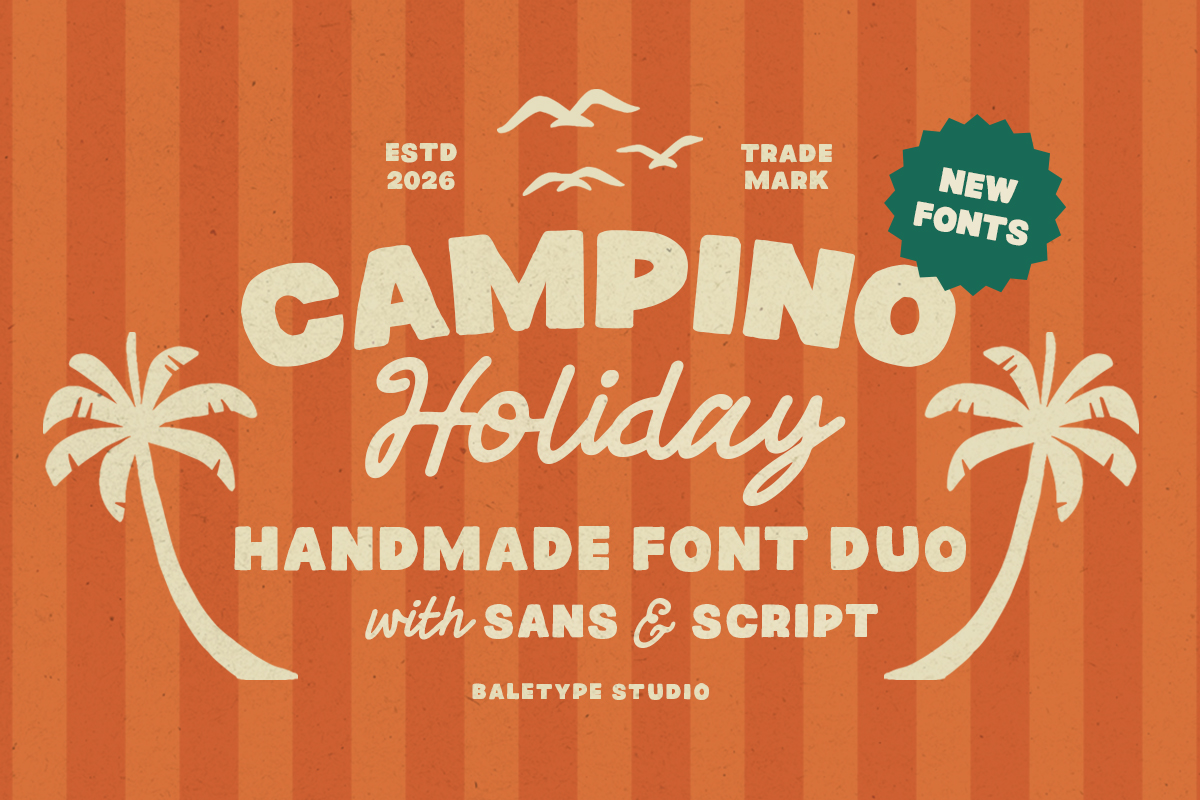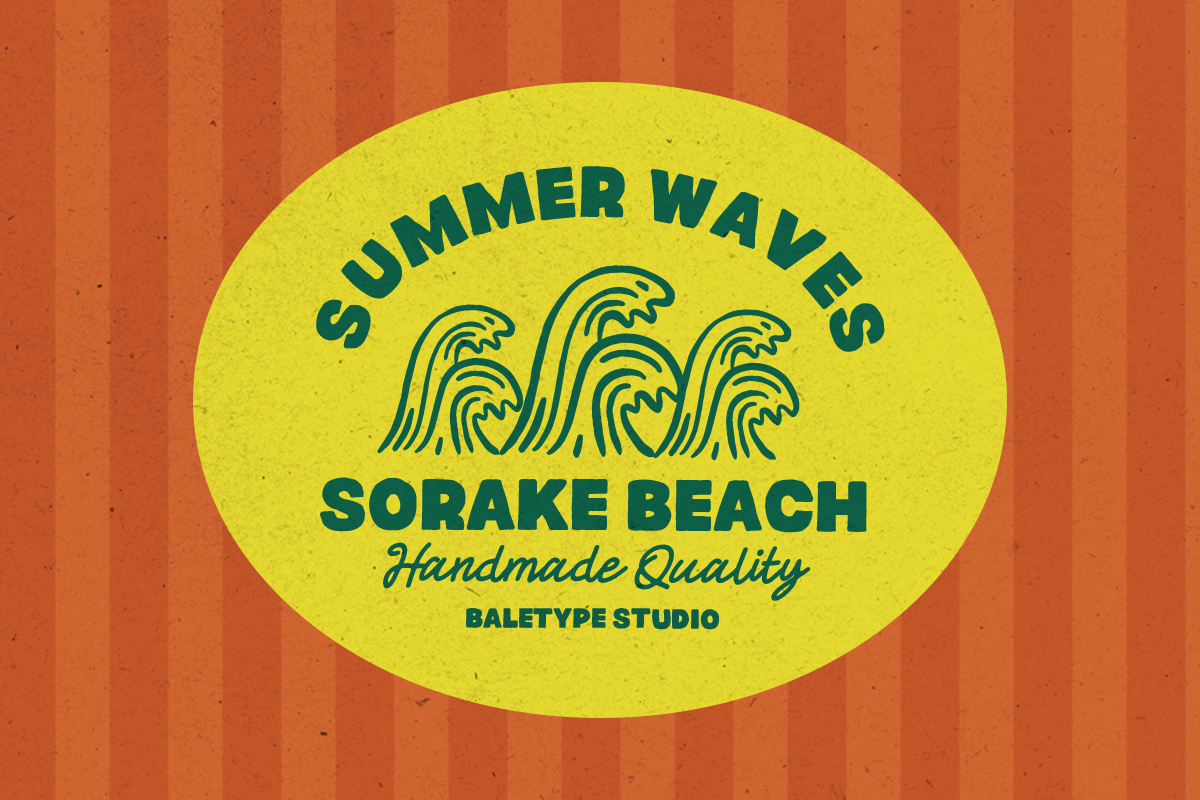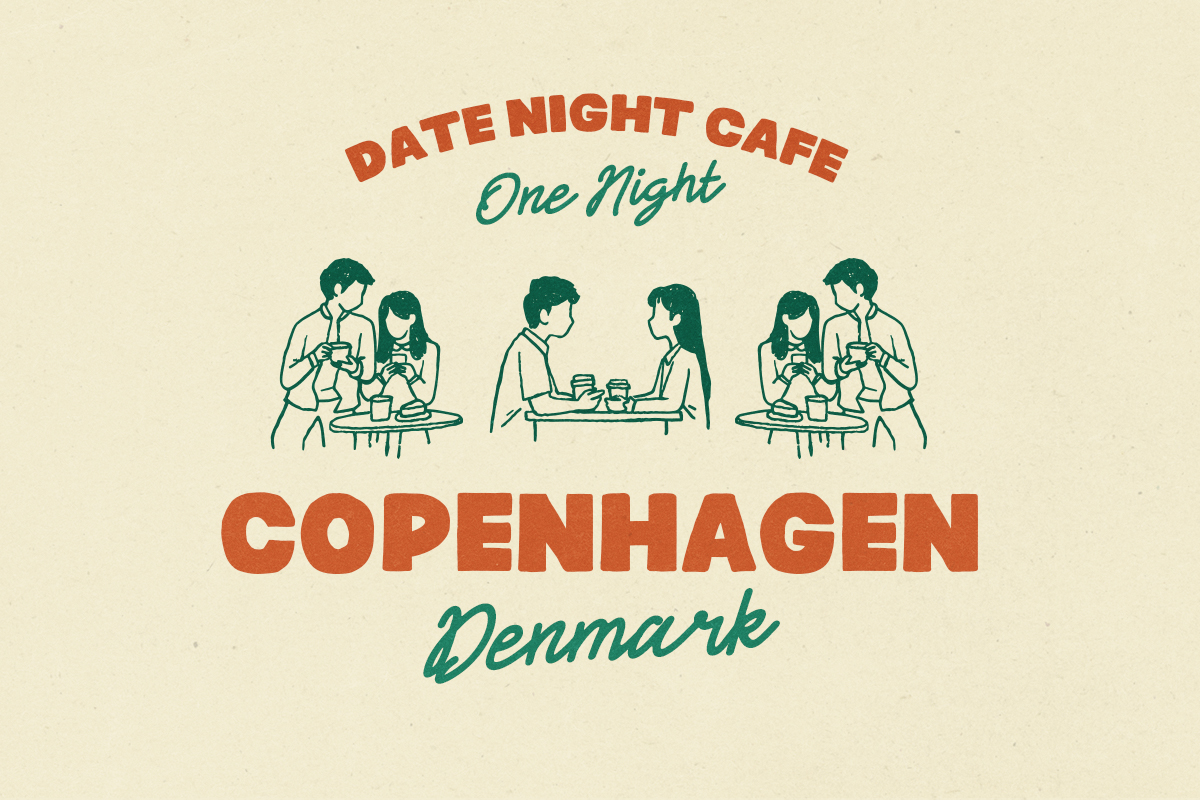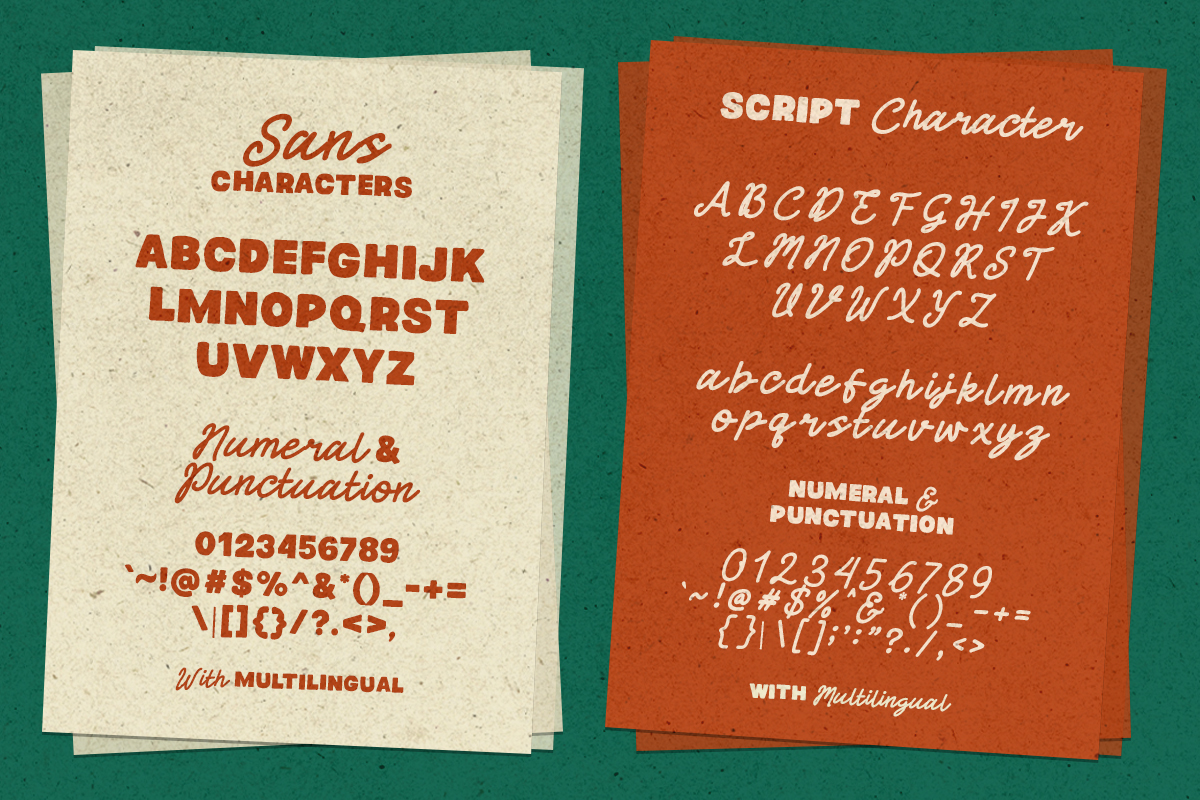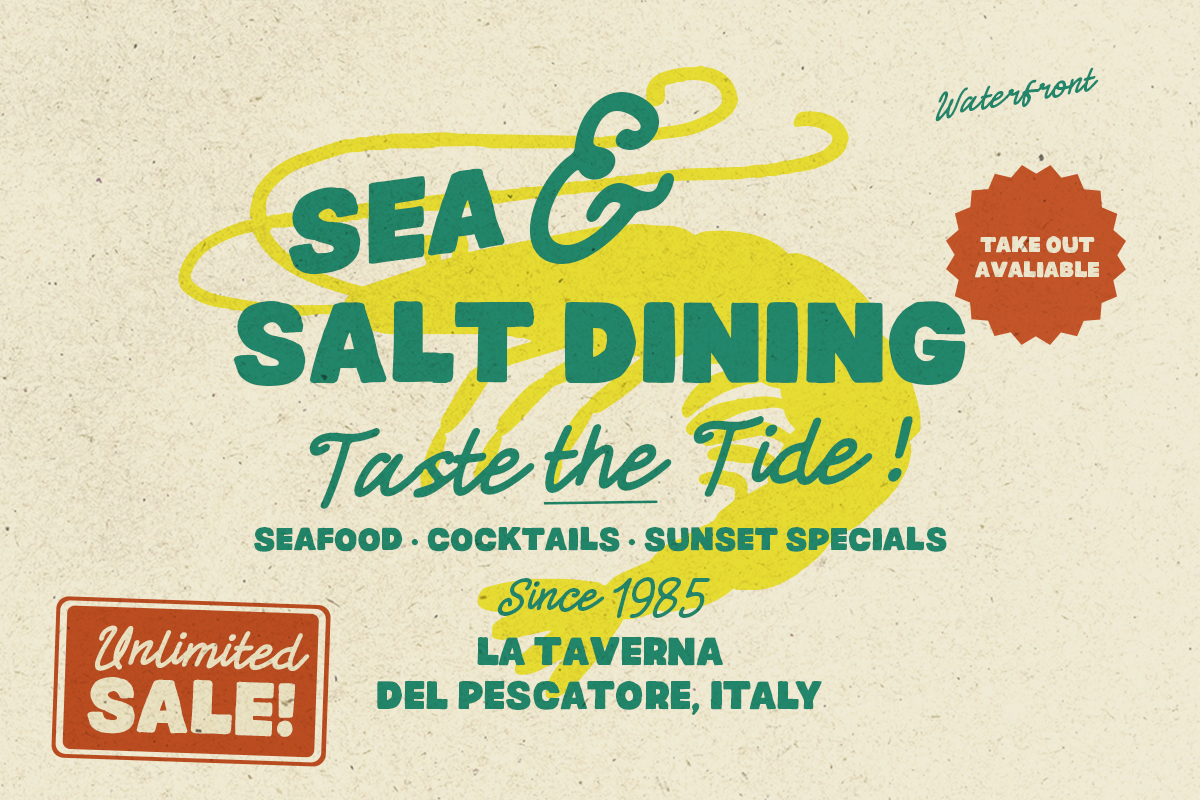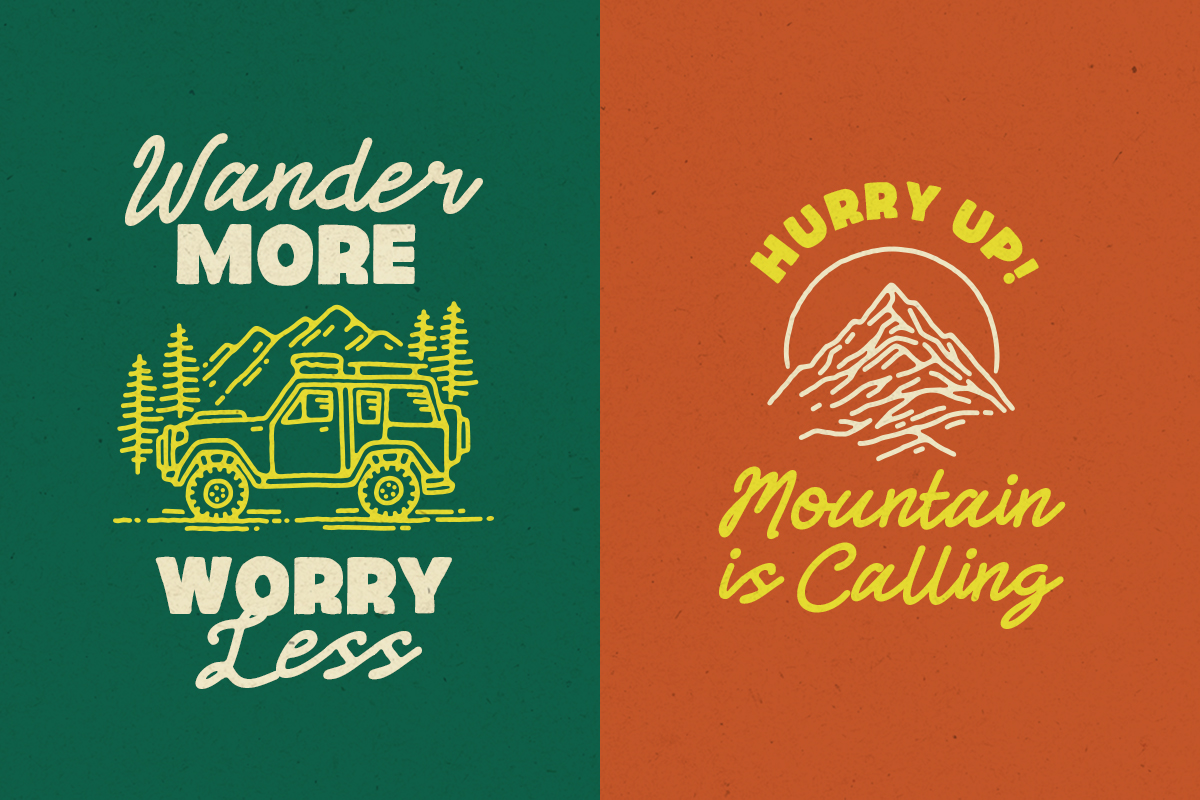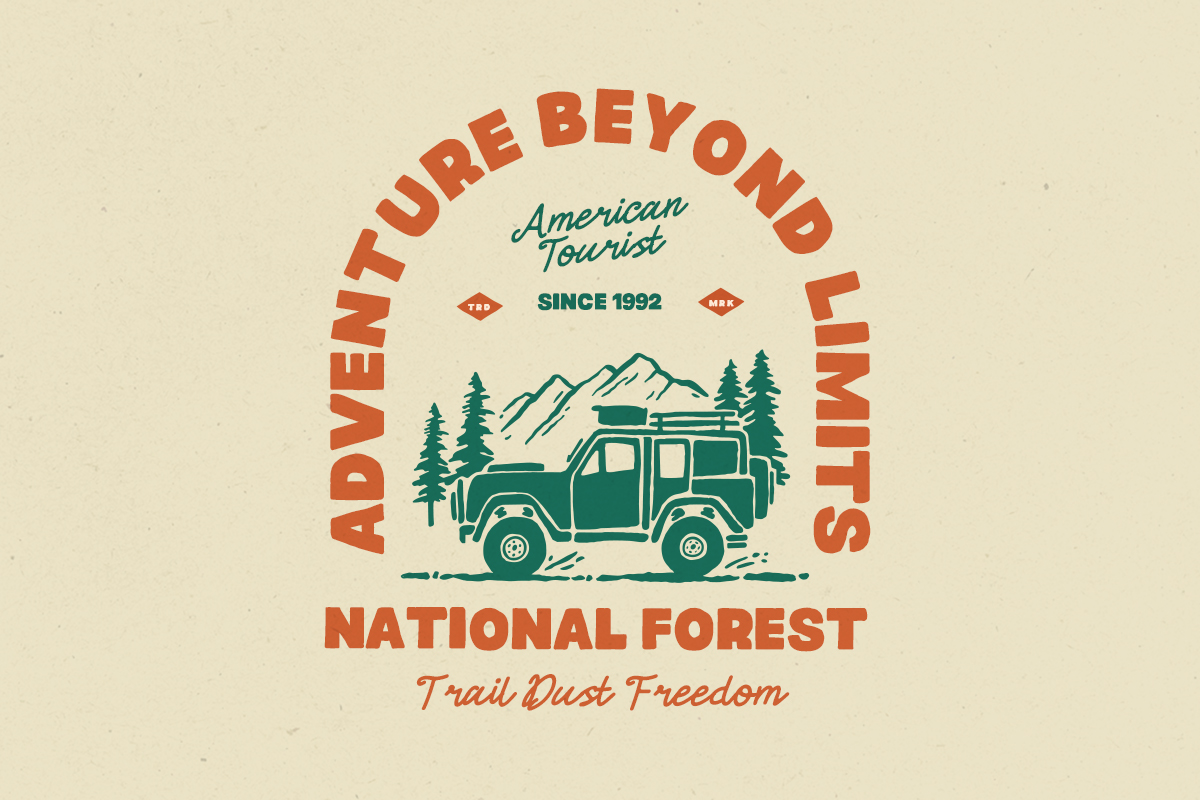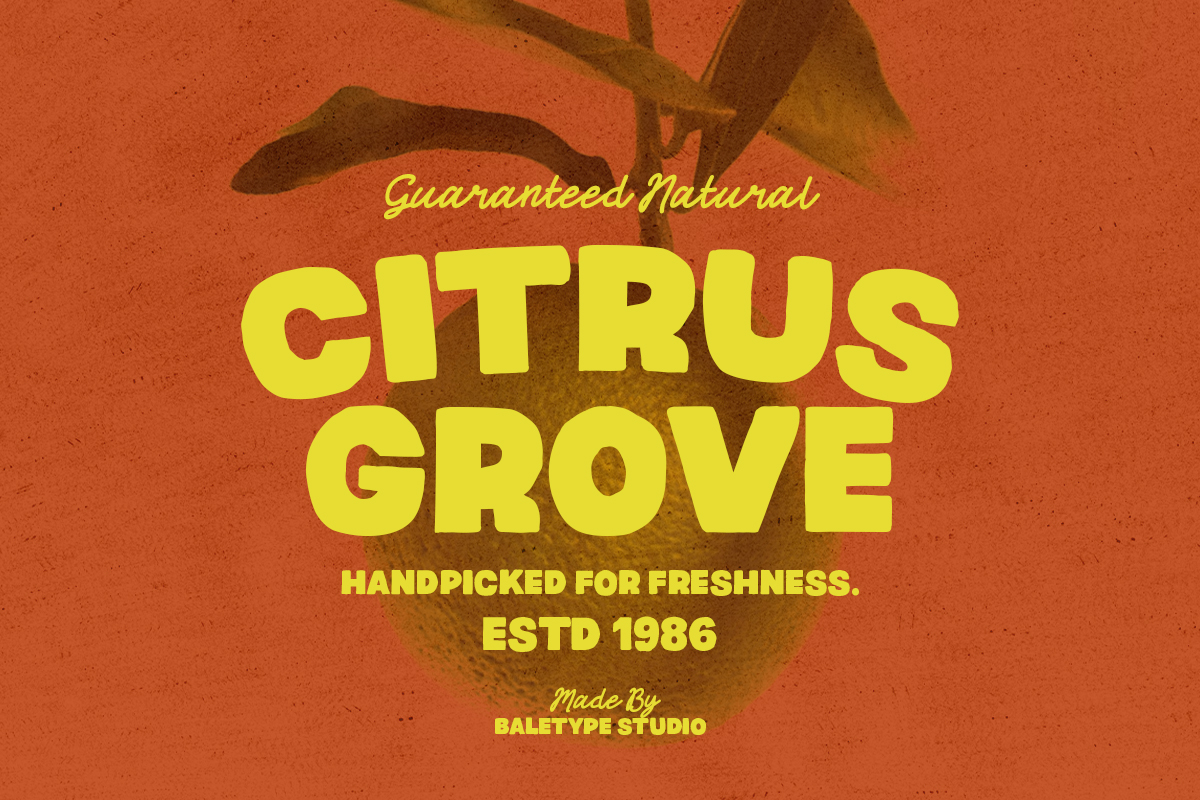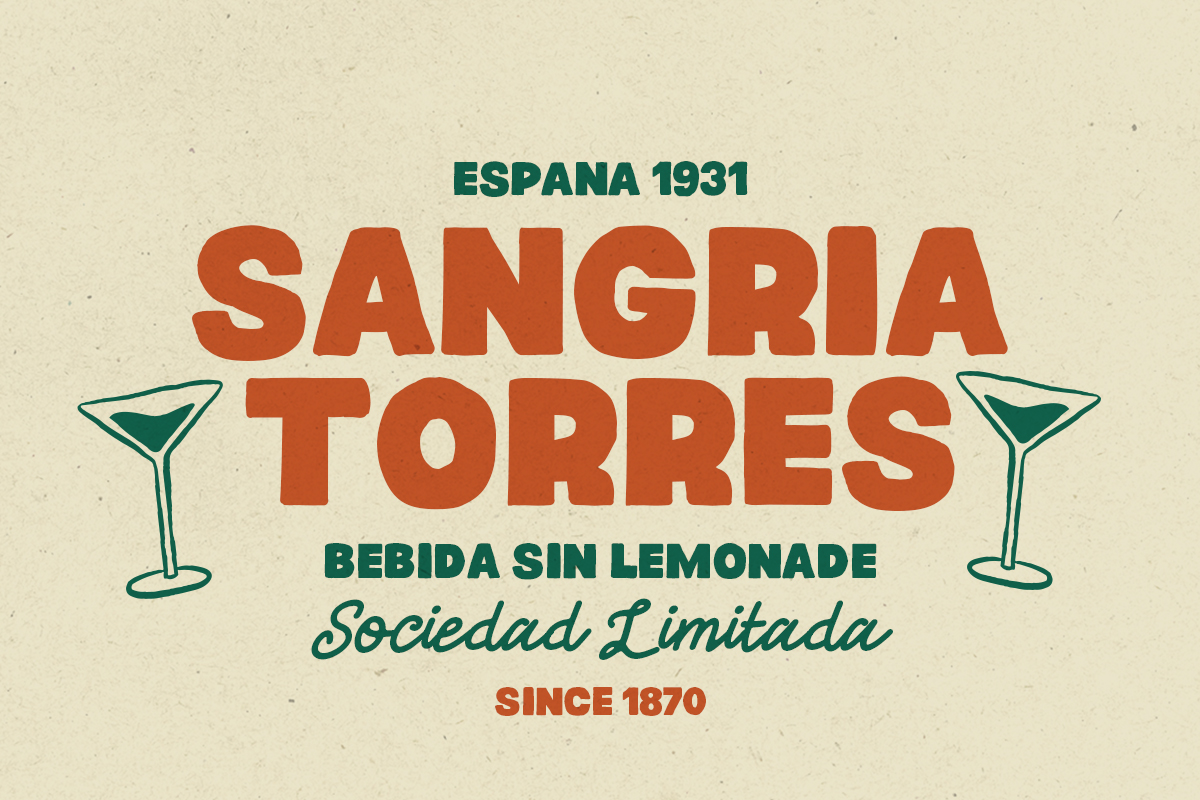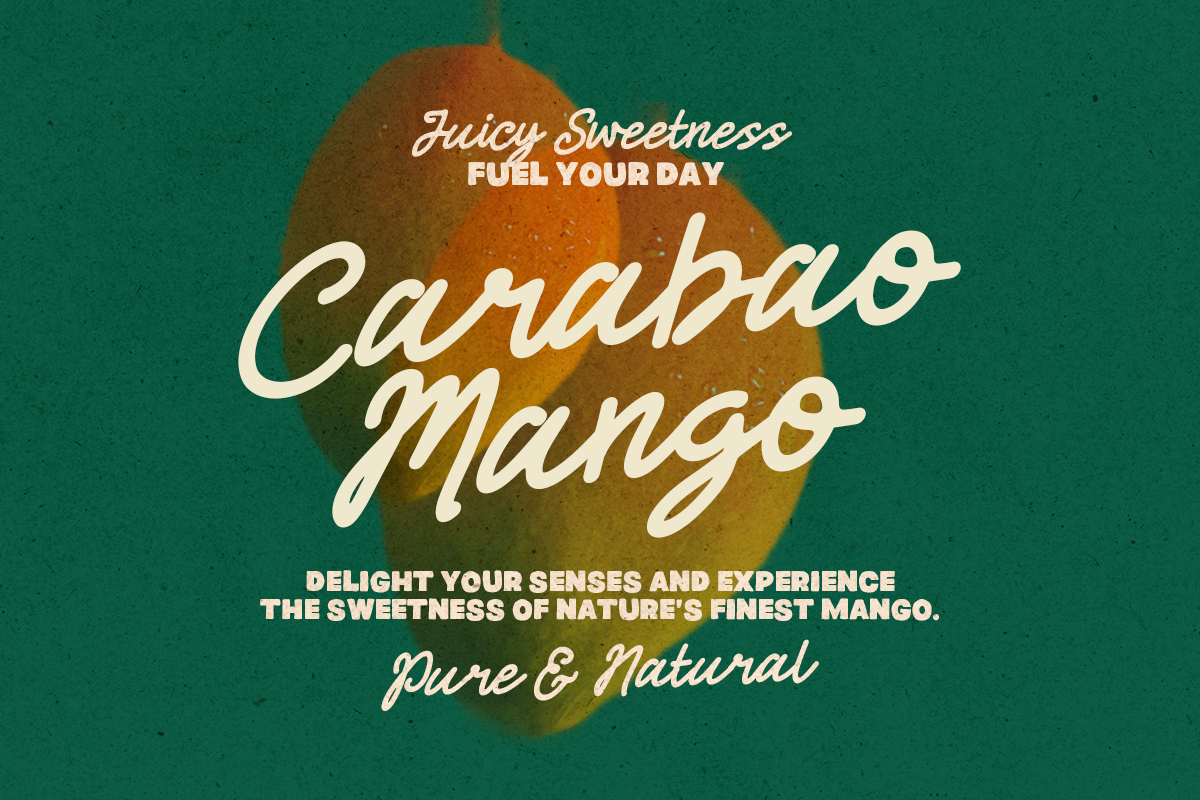
Campino Holiday Sans
Campino Holiday Script
Campino Holiday is a handwritten font duo inspired by sunny days, ocean breezes, and unforgettable summer adventures. Featuring a bold sans serif paired with a flowing monoline script, this versatile combination brings warmth, fun, and a laid-back holiday feeling to every design. Perfect for beach branding, travel journals, packaging, logos, quotes, invitations, social media graphics, and any project that calls for a handmade summer touch, Campino Holiday helps your creations feel fresh, relaxed, and full of personality. With multilingual support included, this font duo is ready to accompany your creative journey wherever summer takes you.
Campino Holiday – Handmade Font Duo
Campino Holiday is a handwritten font duo inspired by sunny days, ocean breezes, and unforgettable summer adventures.